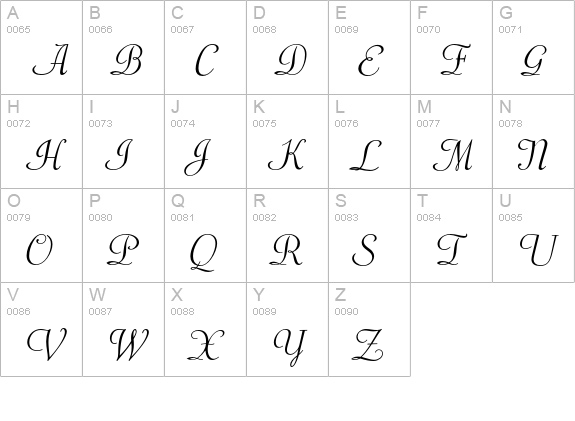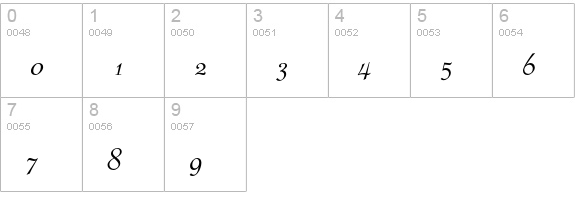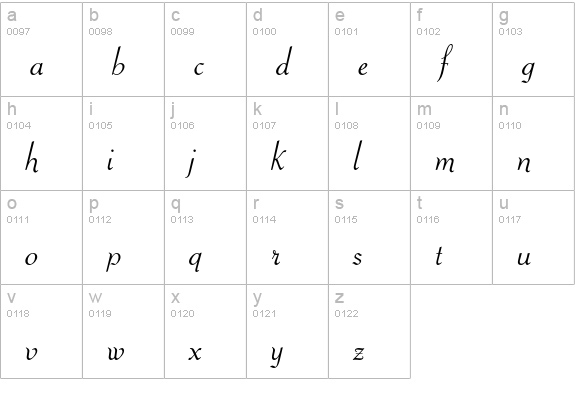
Piranesi Italic Font Details
Piranesi Italic is a distinctive, italic variant in the Piranesi typeface family \xE2\x80\x94 well suited to design and typography projects.
Piranesi Italic font is a masterpiece of typographic elegance and artistic flair. Its graceful curves and delicate serifs create a sense of refined sophistication, making it the perfect choice for projects that require a touch of class. With its slanted letters and distinctive style, Piranesi Italic adds a touch of drama and personality to any design. This font captures the essence of Italian craftsmanship, paying homage to the rich heritage of the renowned architect and engraver, Giovanni Battista Piranesi. Just like his intricate etchings, Piranesi Italic font is a work of art in its own right. But what sets Piranesi Italic apart from other fonts is its freedom. Yes, you heard it right – this font is free! You can download it at FontsMarket.com, where it is readily available at no cost. Now you can bring a touch of the Renaissance to your designs without breaking the bank. Whether you're designing invitations for a grand event, creating a mesmerizing logo, or simply adding a touch of elegance to your personal projects, Piranesi Italic font is the perfect choice. Its versatility and timeless charm make it suitable for a wide range of applications. So, why settle for ordinary when you can indulge in the extraordinary? Download Piranesi Italic font for free at FontsMarket.com and elevate your designs to new heights. Let your creativity flow and watch as this font brings your vision to life with its captivating beauty and timeless appeal.